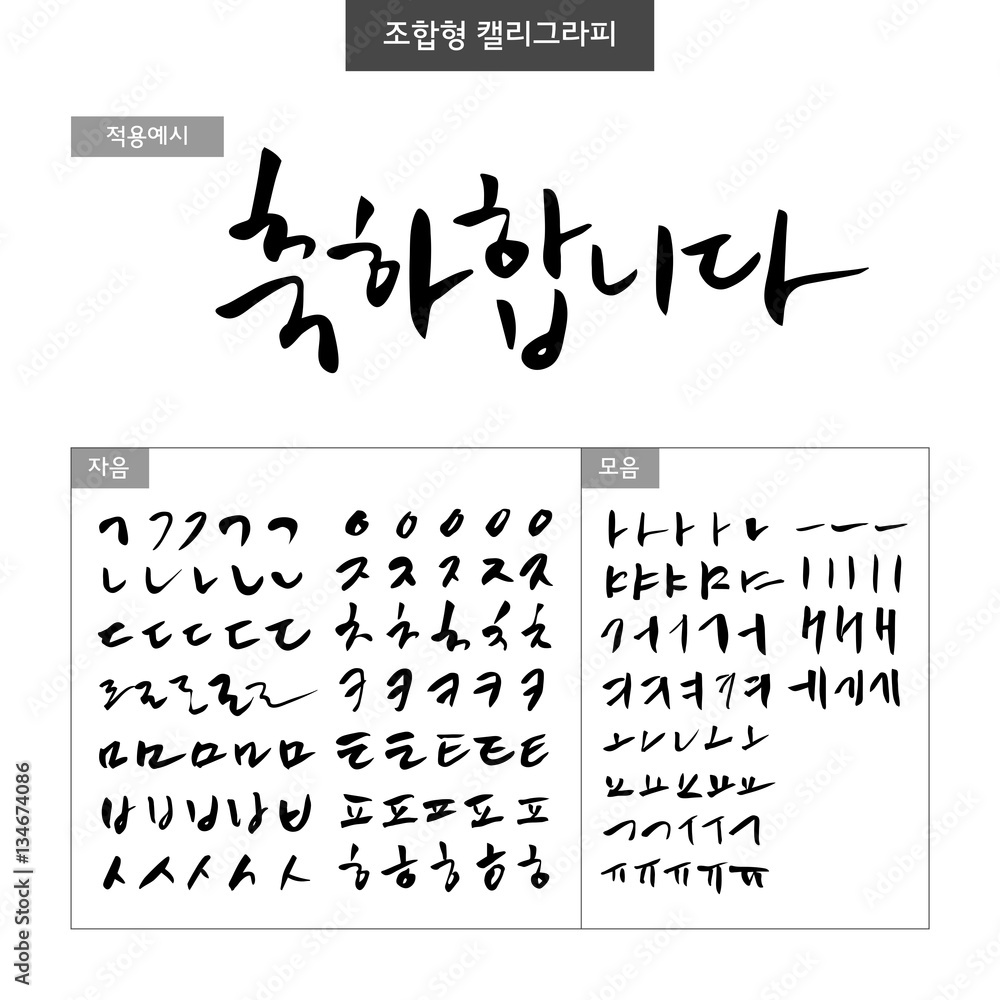
Font Korean Calligraphy
Font Korean Calligraphy - This font is based on 'hangeul', the korean alphabet, and reflects calligraphy typeface. Discover and customize the font korean calligraphy and other similar fonts, ready to share in facebook and twitter. Variation in writing pressure and speed are reflected in the design,. Free download of korean calligraphy font. I recommend that you use this font if you want.